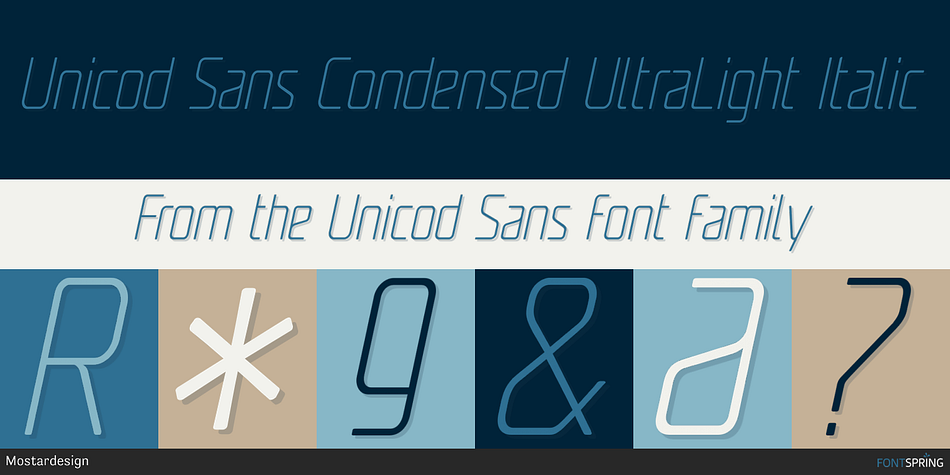
Unicod Sans Condensed UltraLight Italic
Unicod Sans is a sans serif font family. This typeface has twenty styles and was published by Mostardesign.
Created in 2010, this font family has been designed to serve sectors like financial services, modern industries, business and many more activities who needs a modern aspect in their communication.
Created in 2010, this font family has been designed to serve sectors like financial services, modern industries, business and many more activities who needs a modern aspect in their communication. Its square proportions make the design very readable at a wide range of sizes. Shapes give the face a unique futuristic look and is a very practical choice for modern headlines, branding, text and web fonts work. The family contains also an alternative set with simplified letters designed especially for text and a unique stylistic set for titles and branding.
UNICOD SANS PRO is available in 5 weights with corresponding italics and 2 styles.